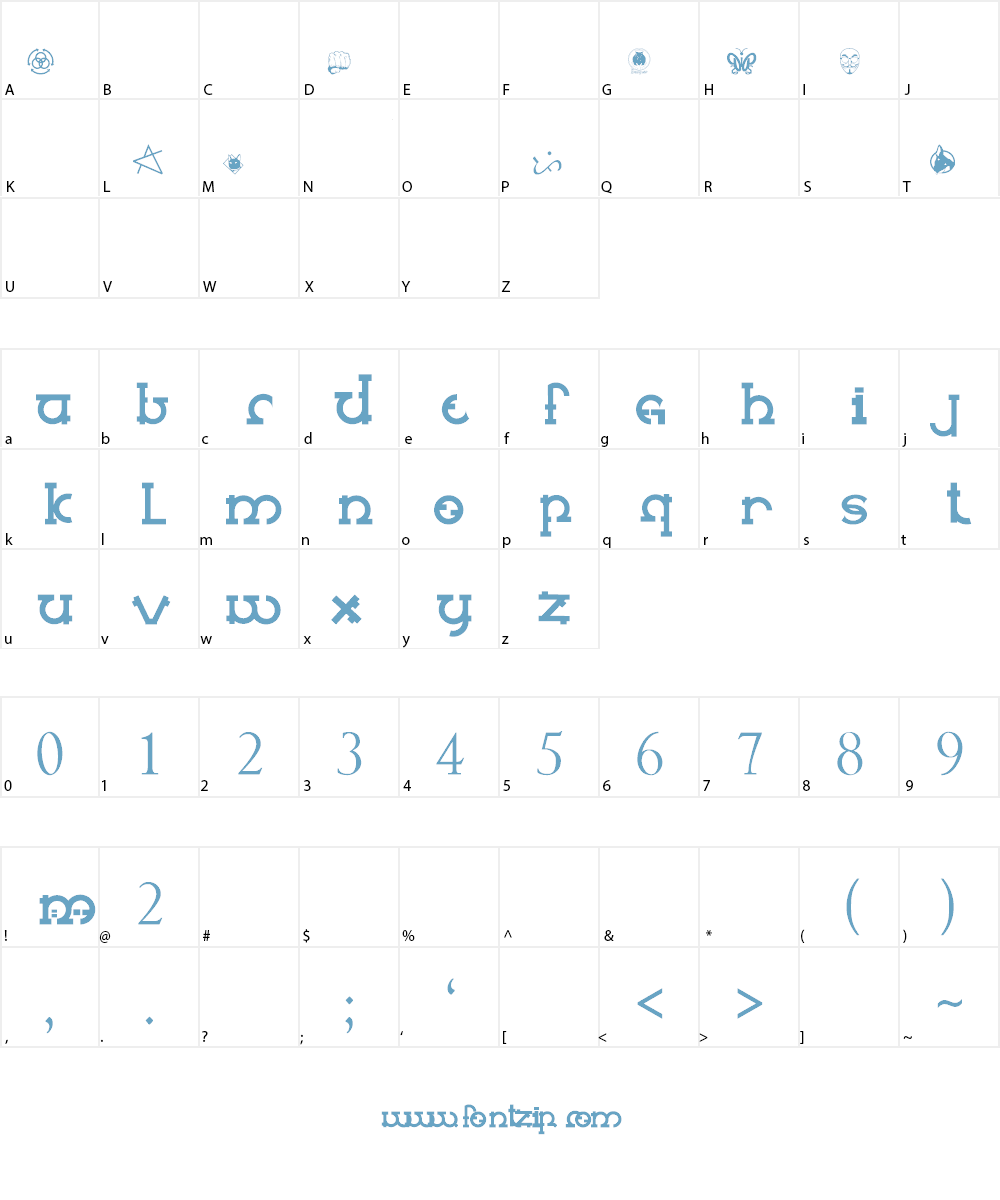
This is my first personalized font. I came up with the a-z letters from my logo 'm'. I also add some images/logo of my friends, my partner, my son and my pets. Thank you and God bless.:)